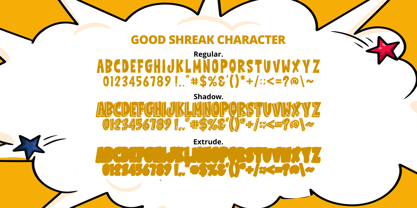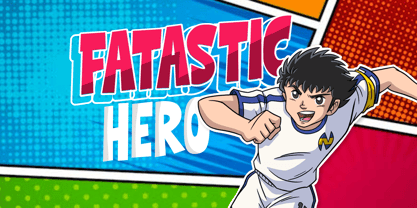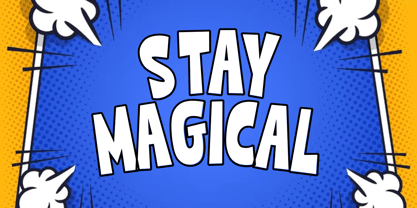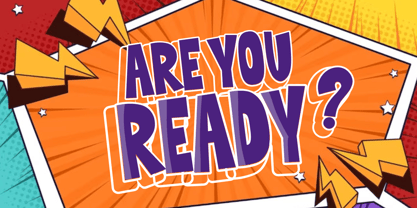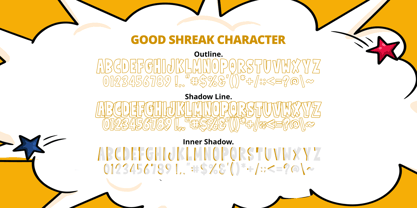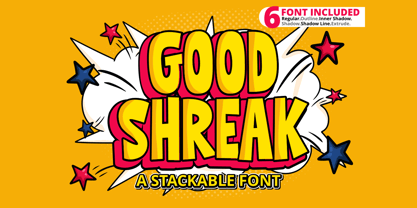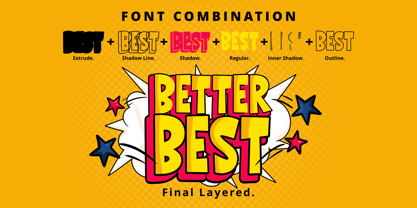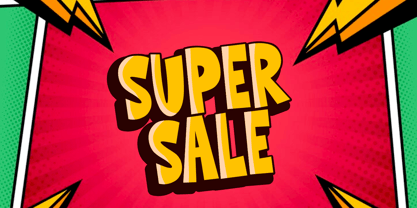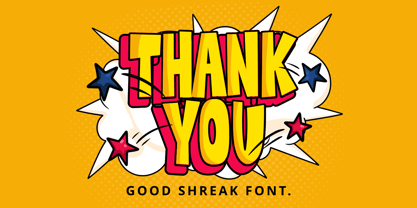
Good Shreak
Die Schriftfamilie Good Shreak wurde von Abdullah Mabhal entworfen und von Mabhal Studio veröffentlicht. Good Shreak enthält 6 Stile und Familienpaketoptionen. Mehr über diese Familie
Good Shreak Font is a bold and energetic comic-style display font designed for maximum impact. This unique stackable font family features six distinct layers: Regular, Outline, Inner Shadow, Shadow Line, and Extrude, allowing for endless creative combinations and 3D pop-art effects. It is perfect for comic books, superhero themes, posters, children’s illustrations, YouTube thumbnails, and branding projects that require a playful, high-action, and hand-drawn aesthetic.